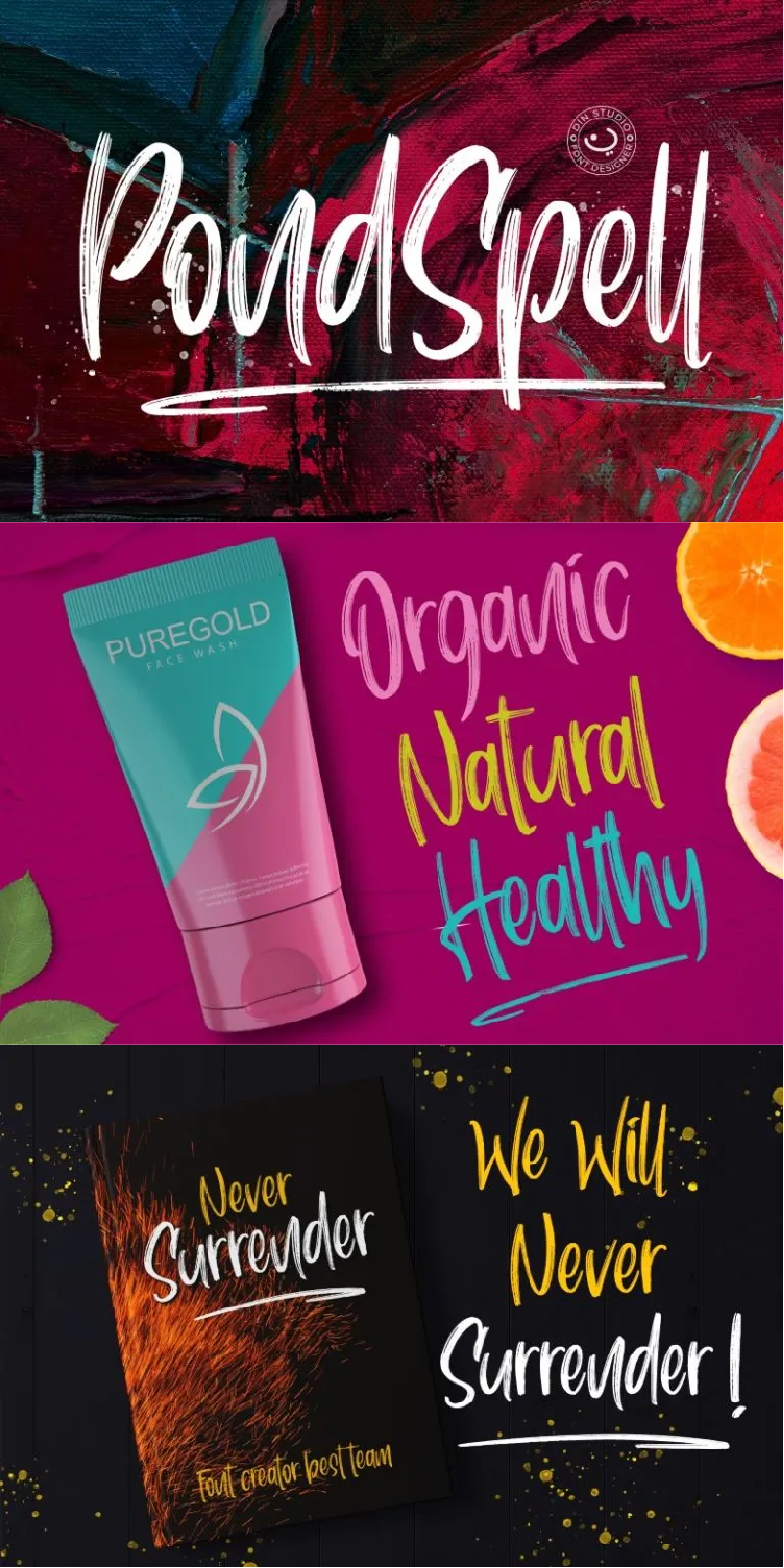
Pondspell Font
About Pondspell
Pondspell is a brush font made with natural brush. The texture from the brush font will make your design more beautiful and powerful. This font is suitable for any designs, like brandings, quotes, book titles, etc. See the previews above to get some inspiration on how you can use them. Happy designing!